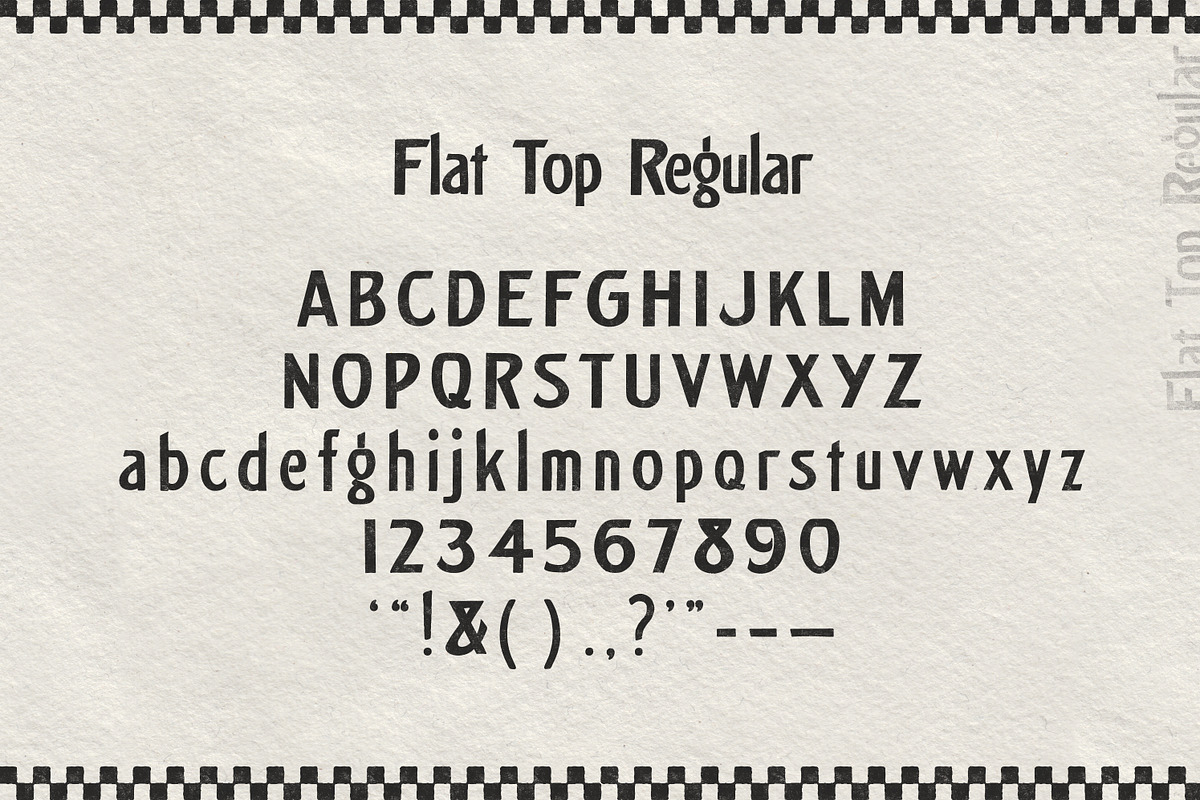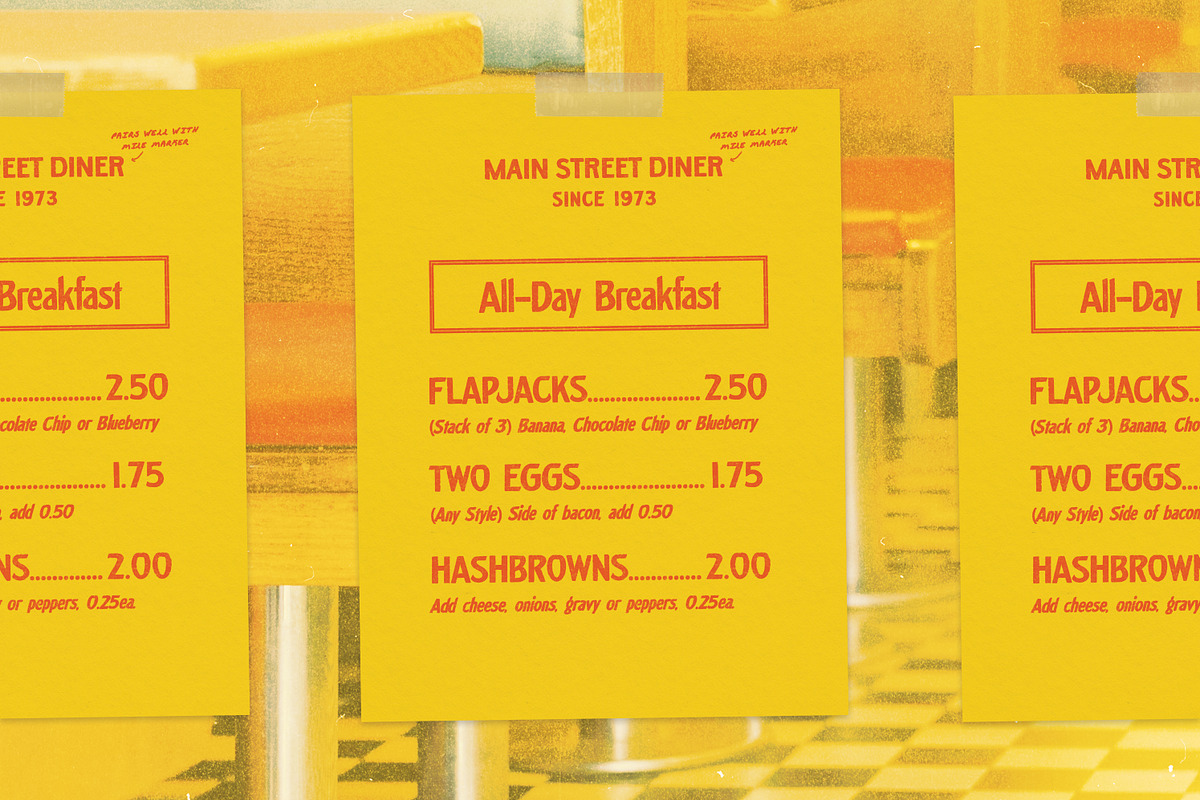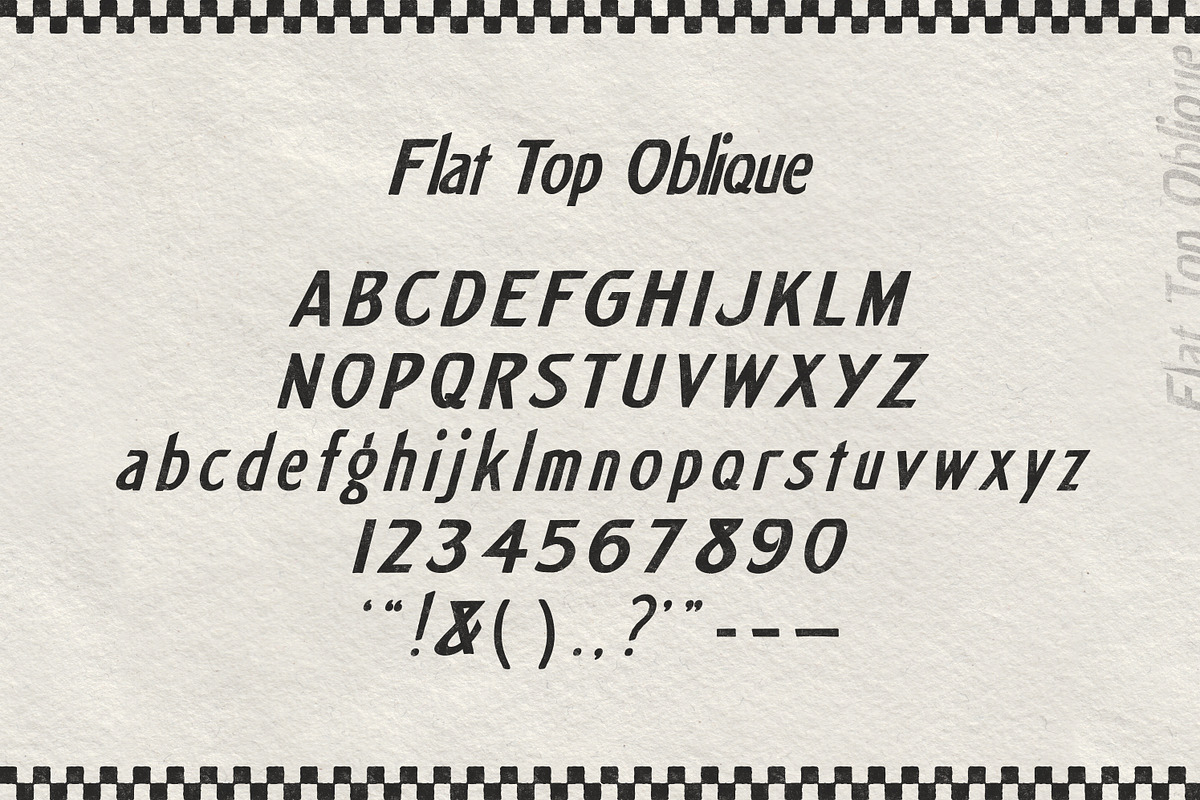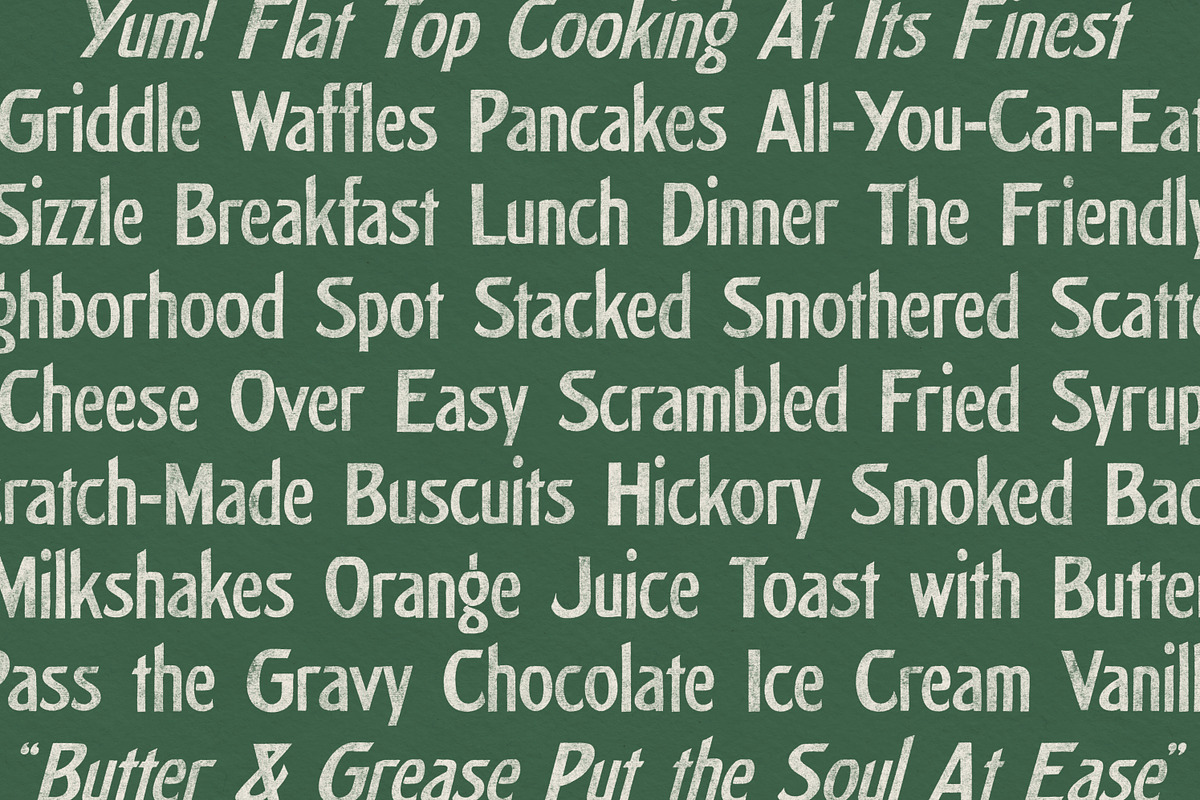
Flat Top Sign Painter Sans
Flat Top is an authentic sign painting-inspired typeface lovingly scanned from vintage sources. Available in Regular and Oblique, these fonts are perfect for your next mom-and-pop branding project or quirky, retro-inspired signage layout to add that hand-painted touch.